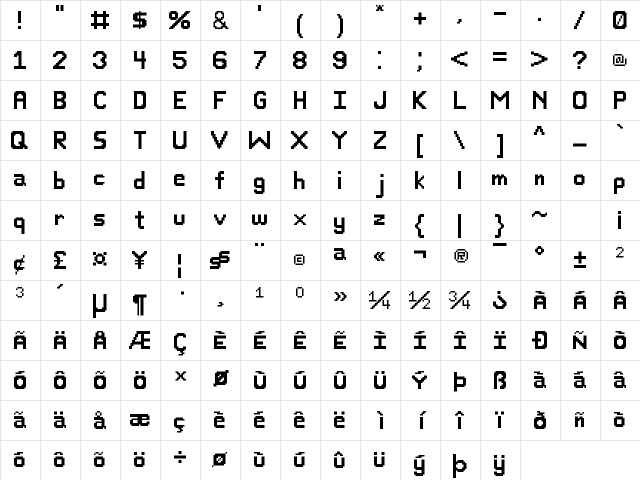
SquimFont Medium
Design Context for SquimFont Typeface
SquimFont takes a measured approach to typography — its balanced proportions and neutral character make it a reliable workhorse for both digital and print work.